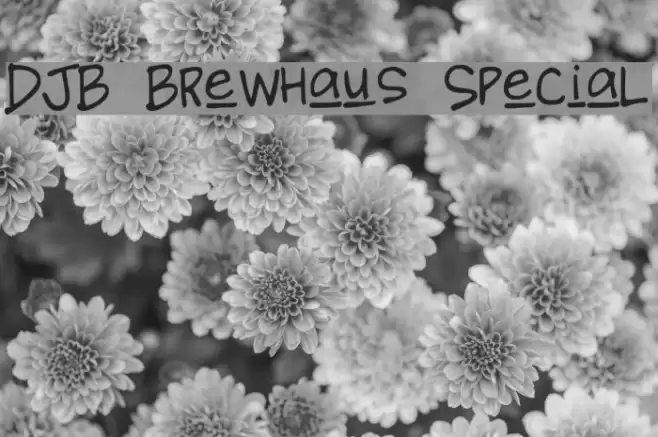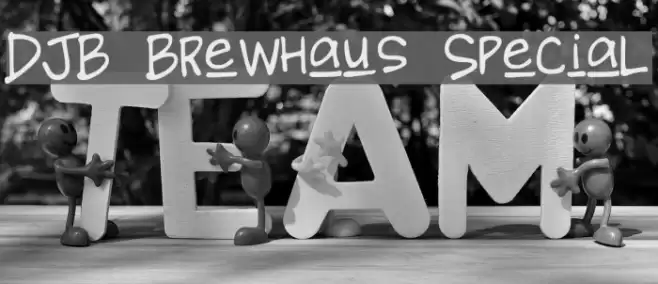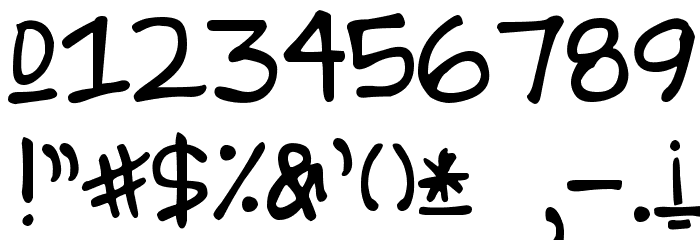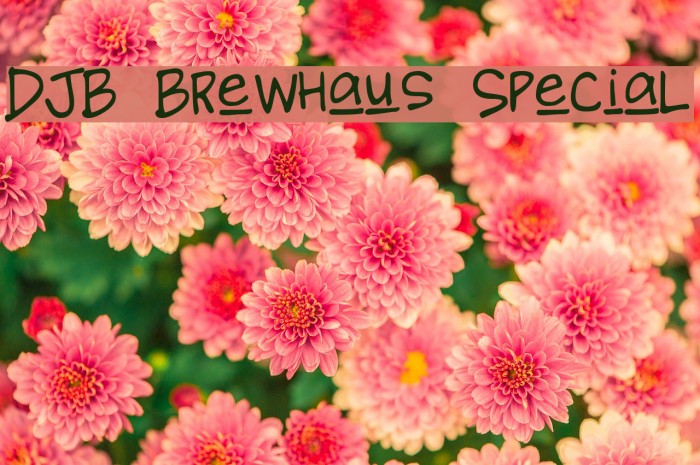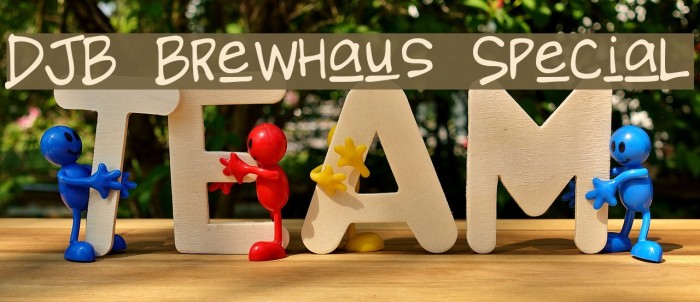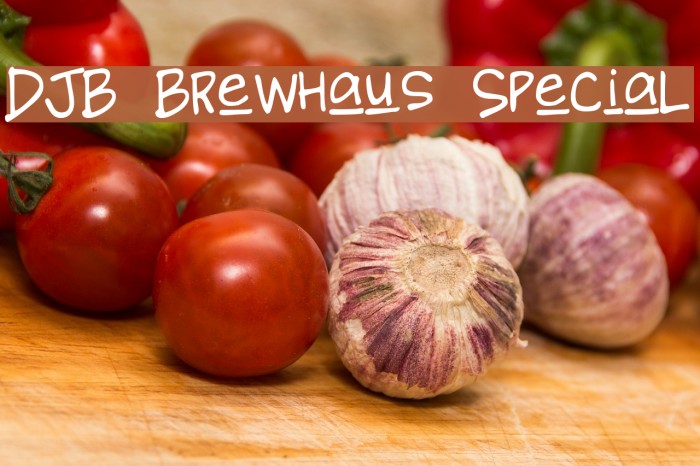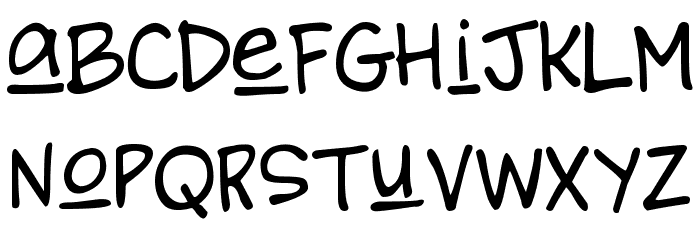
DJB Brewhaus Special Font
DJB Brewhaus Special Description
This font has a playful and whimsical style, characterized by its hand-drawn appearance. The letters are bold and slightly irregular, giving it a casual and friendly feel. The uppercase and lowercase letters are distinct, with unique features such as the underlining of certain letters and playful loops. The numbers and special characters maintain the same playful aesthetic, making the font versatile for creative projects. Its informal style is suitable for designs that aim to convey a sense of fun and approachability.
A playful, hand-drawn font with a whimsical and casual style from Handwritten fonts.
- Proposed Projects: Ideal for children's books, greeting cards, playful branding, and casual invitations.
- Use Case: Headlines, Logos, Informal Text